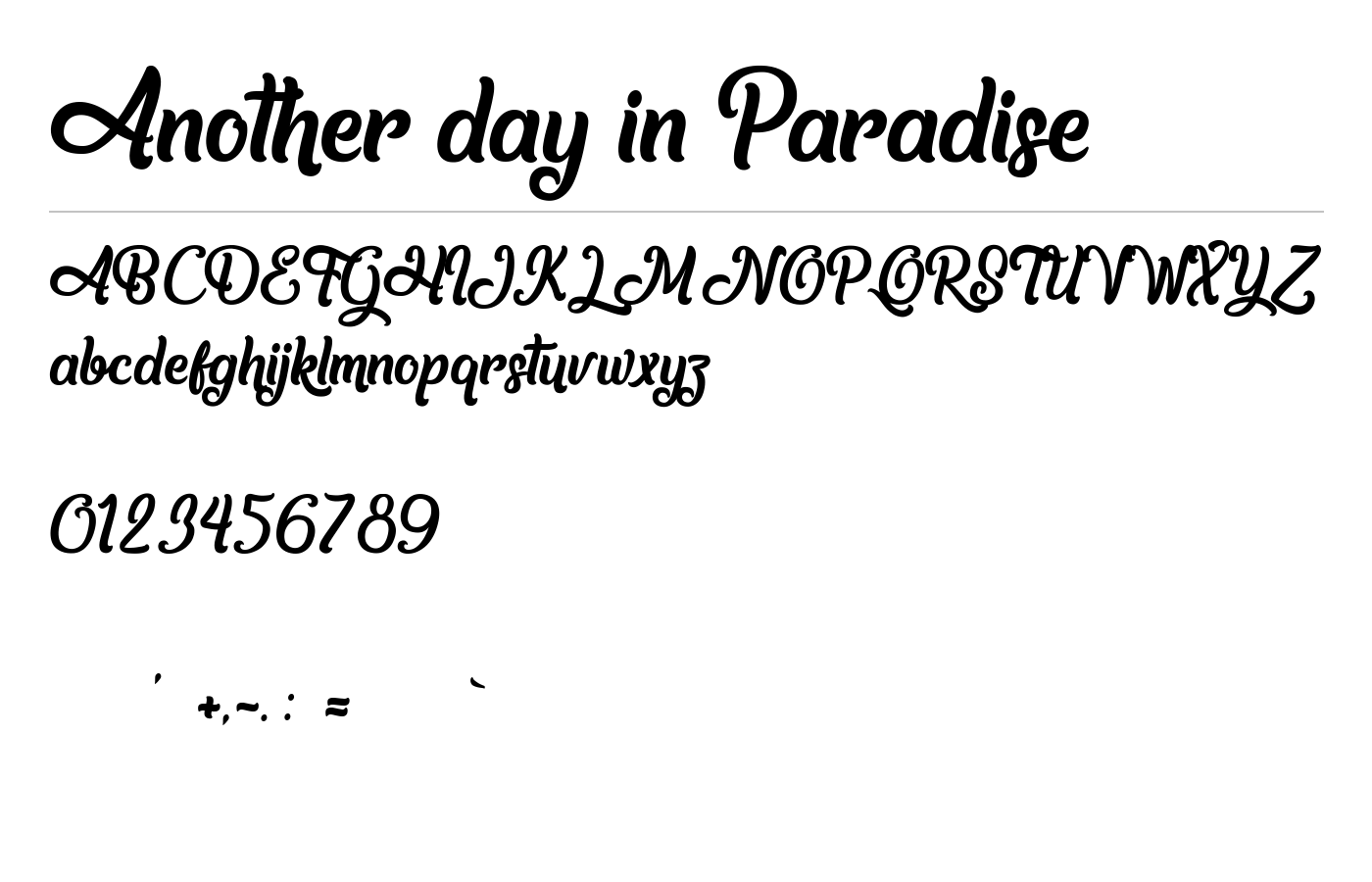
Another day in Paradise is a playful script font with smooth, flowing strokes and a medium weight that balances elegance with friendliness. Its rounded, connected letterforms and cursive style give it a lively, casual charm, perfect for branding and designs that want to feel inviting and warm. This font works well in headlines, logos, and packaging where a personal, cheerful touch is desired.
Another day in Paradise Font
About Another day in Paradise Font